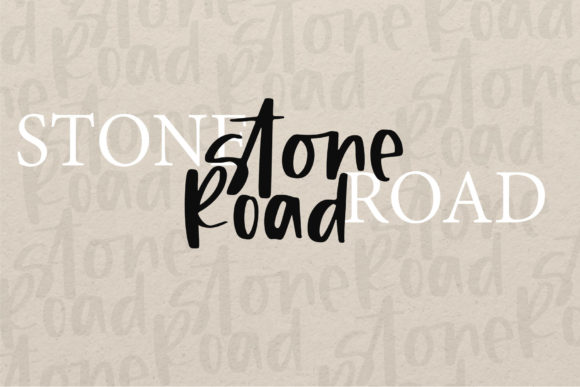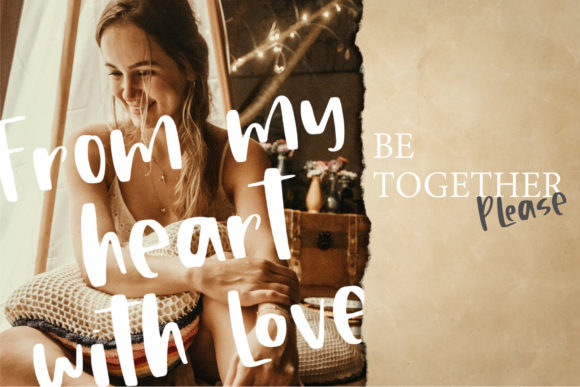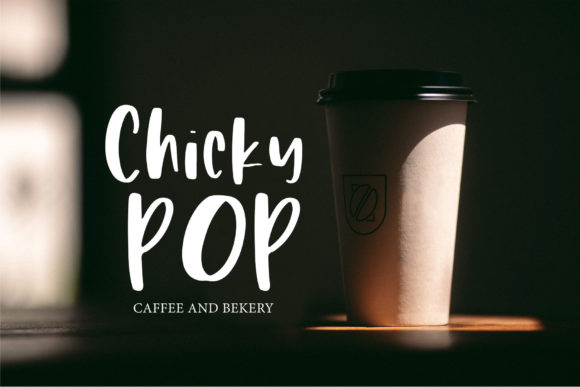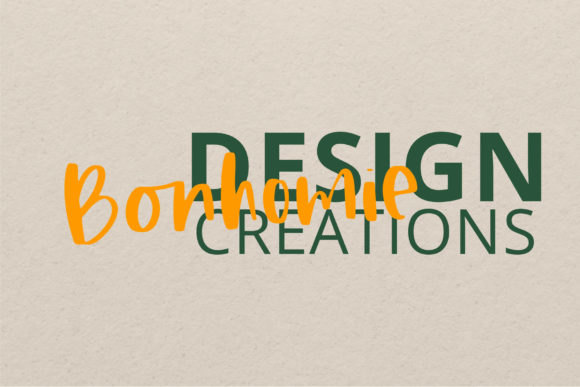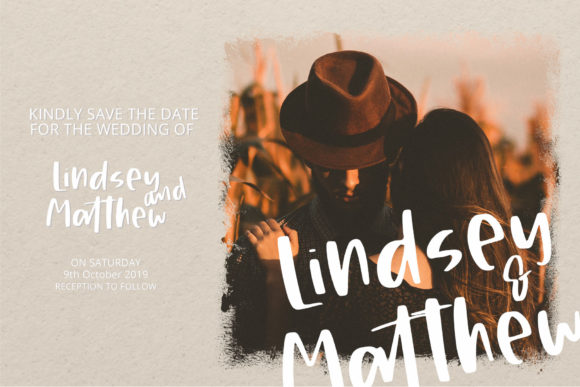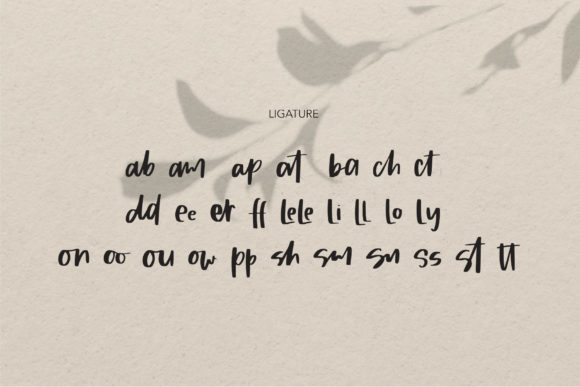
Introduction to Sandra Type Font
As a designer, there’s nothing quite like the thrill of discovering a new font that sparks your creativity. It’s that moment when a blank page becomes a canvas, full of endless possibilities. I recall it like it was yesterday – a late-night brainstorming session, surrounded by scribbled notes and half-baked ideas. That’s when I stumbled upon the enchanting Sandra Type Font.
With its light and charming handwritten feel, Sandra Type Font is a game-changer for any creative project. Whether you’re working on a design resource, a marketing campaign, or a personal art piece, this high-quality font is sure to elevate your work. Its unique authenticity makes it stand out from the crowd, and its transparent background allows for seamless integration into any design.
Key Features of Sandra Type Font
• High-quality design resource ideal for creative projects
• Unique, elegant design style perfect for adding a touch of sophistication to your creative project
• Perfect for use in logos, headings, and body text, thanks to its clean and modern design
Honest Review: Sandra Type Font
I recently had the chance to work with the Sandra Type Font, and I have to say it’s been a great addition to my design resource library. This high-quality font is perfect for any creative project that requires a touch of elegance.
• ✨ Elegant and sophisticated design
• ✨ High-quality typography
• ✨ Versatile and suitable for various creative projects
However, there are a few limitations to consider. The font may not be as extensive as some other options on the market, and it’s not suitable for very large-scale designs.
Overall, I’m impressed with the Sandra Type Font. It’s a great design resource for anyone looking to add a touch of sophistication to their creative project.
• ⚠️ Limited font options
• ⚠️ Not suitable for very large-scale designs